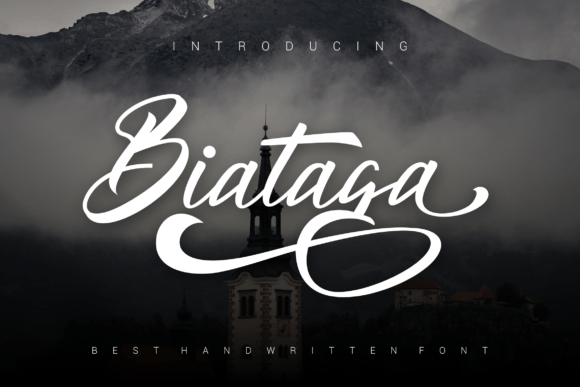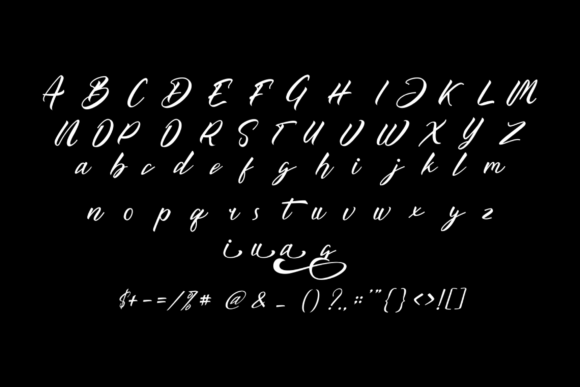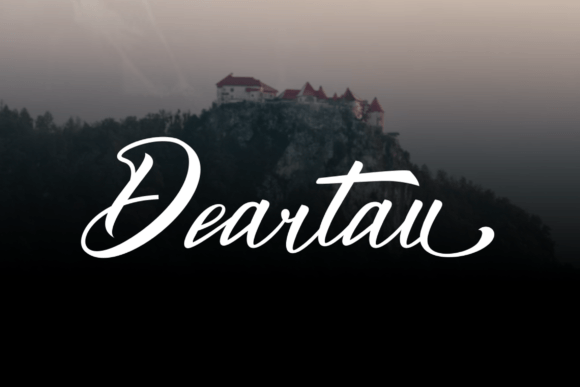
Biataga Font
About Biataga Font
Meet Biataga, a sweet and cursive handwritten font that exudes charm. This gentle font is not just a collection of characters; it’s a touch of sweetness that enhances a variety of design ideas. With its graceful strokes, Biataga injects a sense of joy and romance into every project it graces.
The allure of Biataga lies in its delicate cursive script, a style that adds a touch of elegance to any context. This font isn’t just about letters; it’s about creating an atmosphere of sophistication and refinement. Its gentle curves and fluid lines contribute to a visual aesthetic that is both pleasing and captivating.
Biataga’s versatility is one of its key strengths. It seamlessly integrates into a spectrum of design applications, making it a perfect fit for branding, logos, wedding materials, greeting cards, fashion-related projects, lookbooks, and marketing promotions. Whether you want to convey a sense of fancy elegance or maintain a casual vibe, Biataga effortlessly adapts to your vision.
Imagine Biataga gracing the branding of a boutique, lending its romantic touch to wedding invitations, or adding a dash of sophistication to a fashion lookbook. Its ability to convey both joy and elegance makes it a versatile choice for a wide array of creative projects.
In the realm of visual communication, Biataga becomes a valuable asset. It doesn’t just write words; it tells a story, evoking emotions and setting a tone. It’s the kind of font that transforms ordinary text into an aesthetic experience, making it memorable and impactful.
In conclusion, Biataga isn’t just a font; it’s an aesthetic choice that adds a layer of sweetness and romance to your projects. Whether you’re a designer aiming for elegance or someone looking to infuse joy into their creations, Biataga is ready to enhance your visual narrative. Let it be the subtle yet powerful element that elevates your branding, designs, and promotional materials with its sweet and cursive charm.